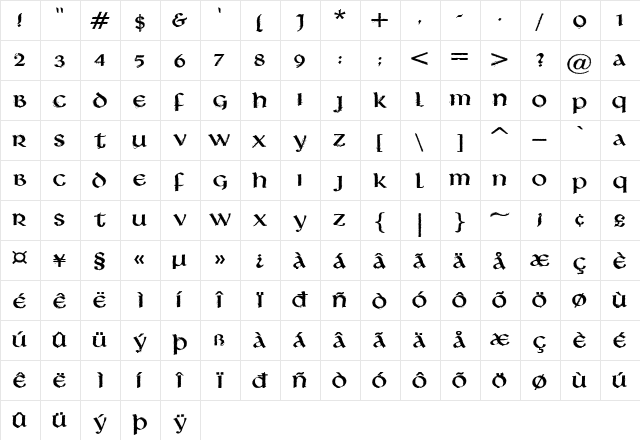
LD Christmas Ale Regular
Design Context for LD Christmas Ale Typeface
LD Christmas Ale is a composed and adaptable typeface that performs quietly and consistently across a wide range of design contexts.